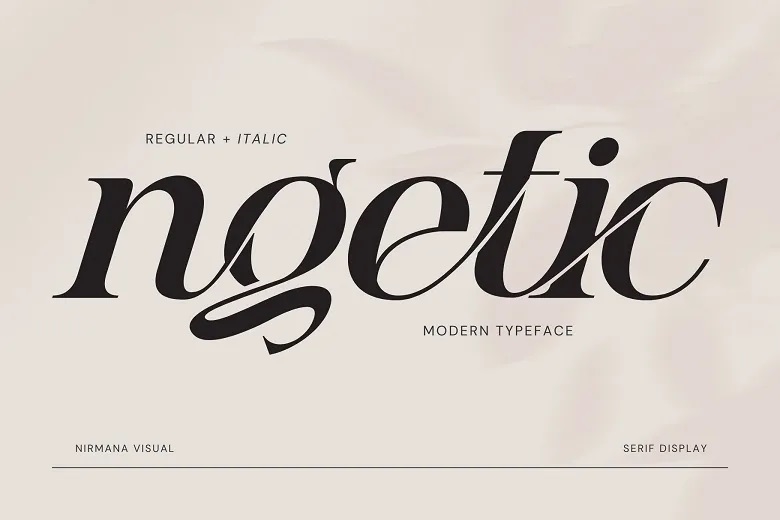
Ngetic Font
Introducing Ngetic’s new modern serif display font. Ngetic offers clean Lettering, for stuff like logos & branding, social media content, advertisements & product designs etc.
Ngetic Serif Font